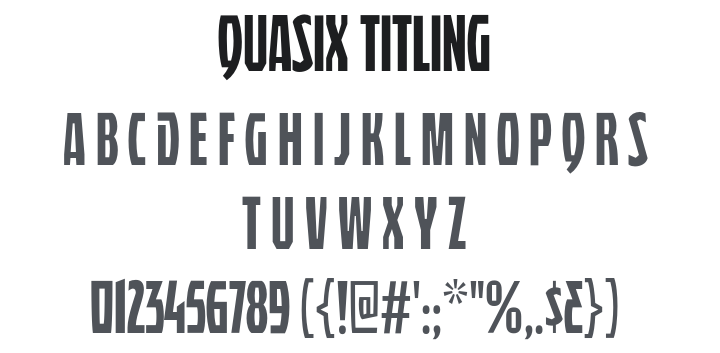
About Quasix Titling
Quasix Titling is an all-caps display typeface built on eccentric precision...mechanical, compact, and brimming with character. Its letterforms evoke the parts of a machine designed by an inventor with style to spare, giving headlines a distinctive, engineered quirk that stands out without shouting.
Ideal for retro-futuristic posters, bold branding, and visual identities that need an unconventional edge, Quasix Titling brings technical intrigue and individuality to any layout. A free commercial-use desktop license makes it an easy addition to your toolkit, while the full Quasix family...with lowercase and expanded options; offers even greater range. With broad Latin-based language support, Quasix Titling carries its inventive spirit worldwide; a compact powerhouse for designers who like their typography a little unpredictable.